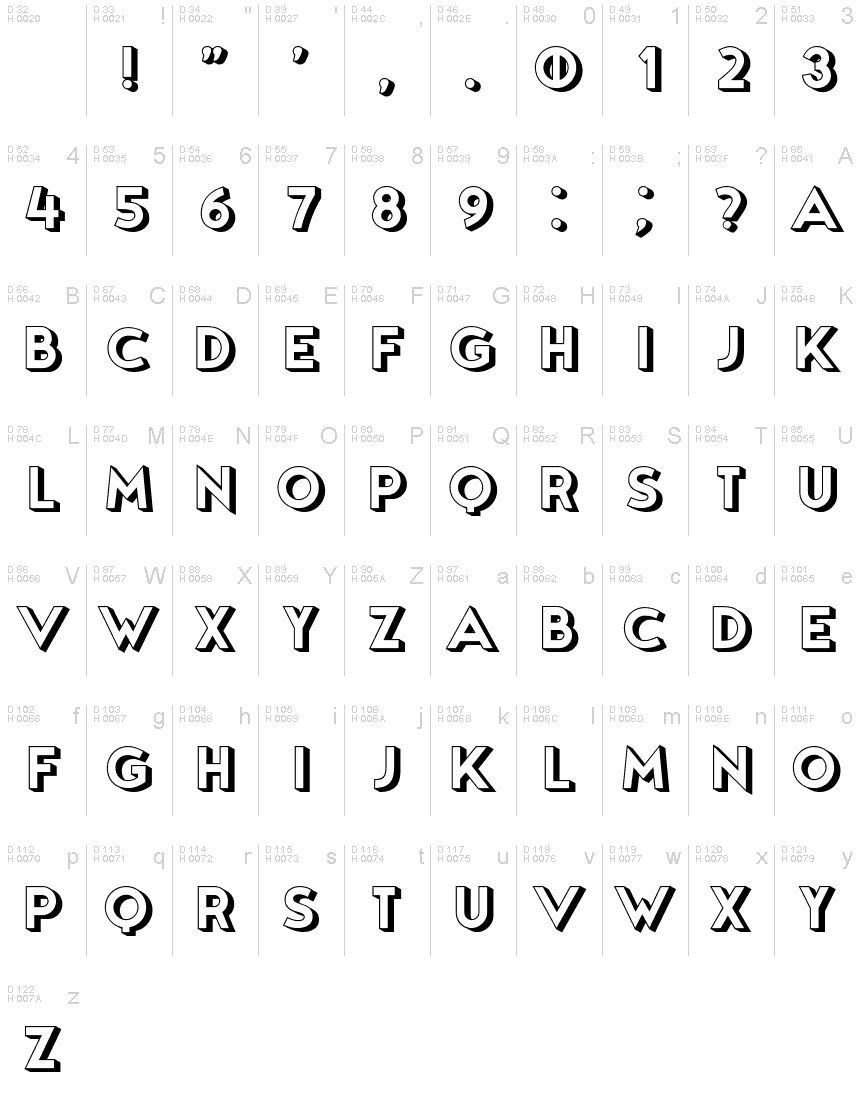
Delta Regular
Introducing Delta, a 3D sans serif typeface designed with boldness and sophistication in mind. Created by Vladimir Nikolic, this display font is ideal for creating impactful titles and headlines. With its modern character and unique style, Delta is perfect for making your projects stand out from the crowd - from posters to logos, packaging to merchandising. With its sleek and elegant look, Delta will make any project look sophisticated yet edgy.